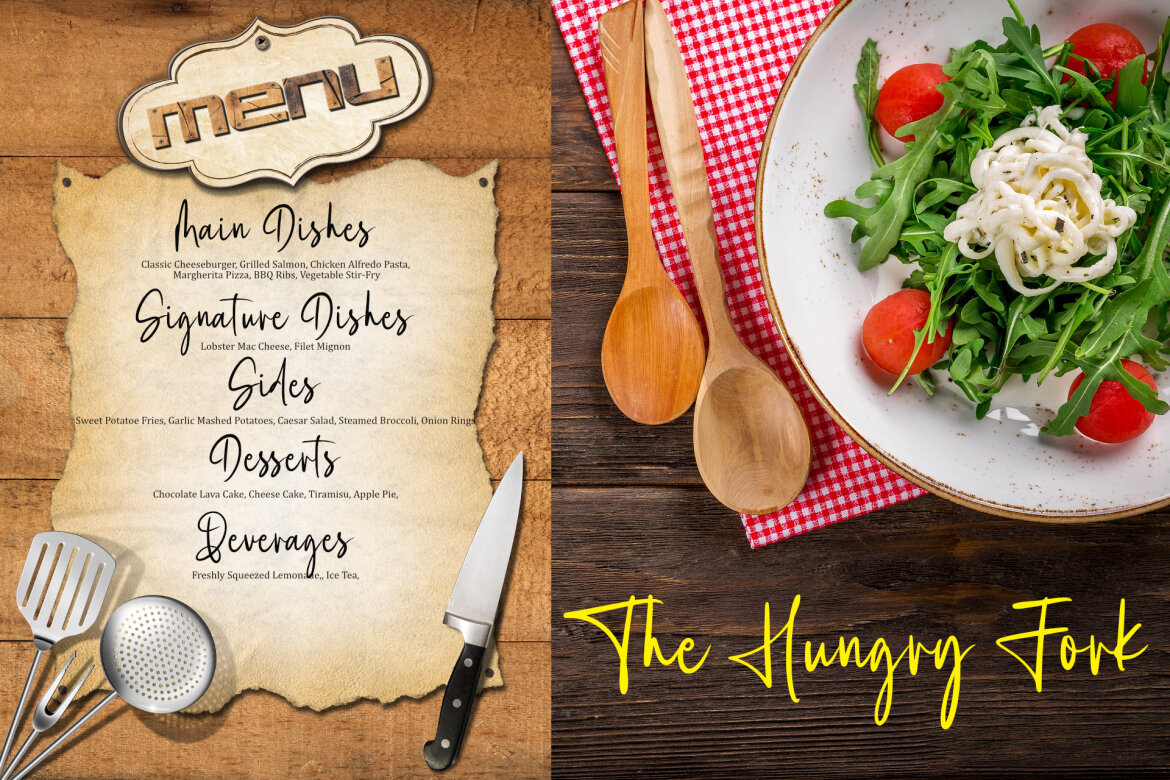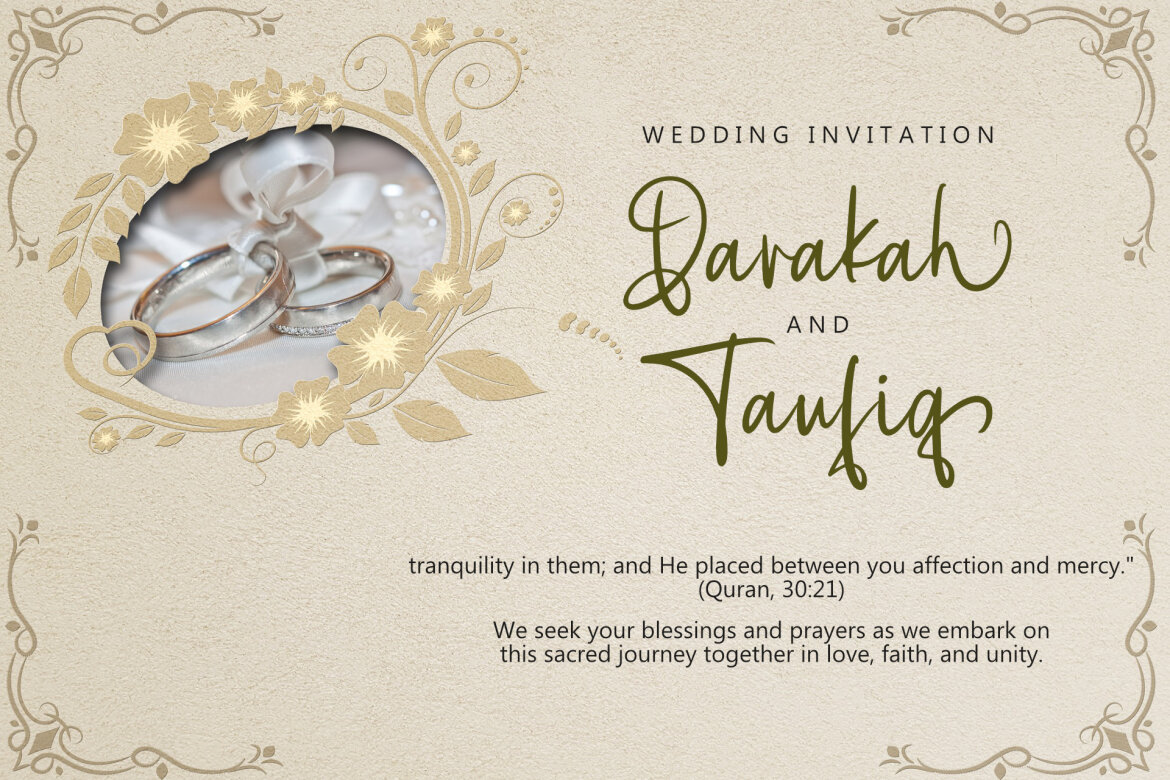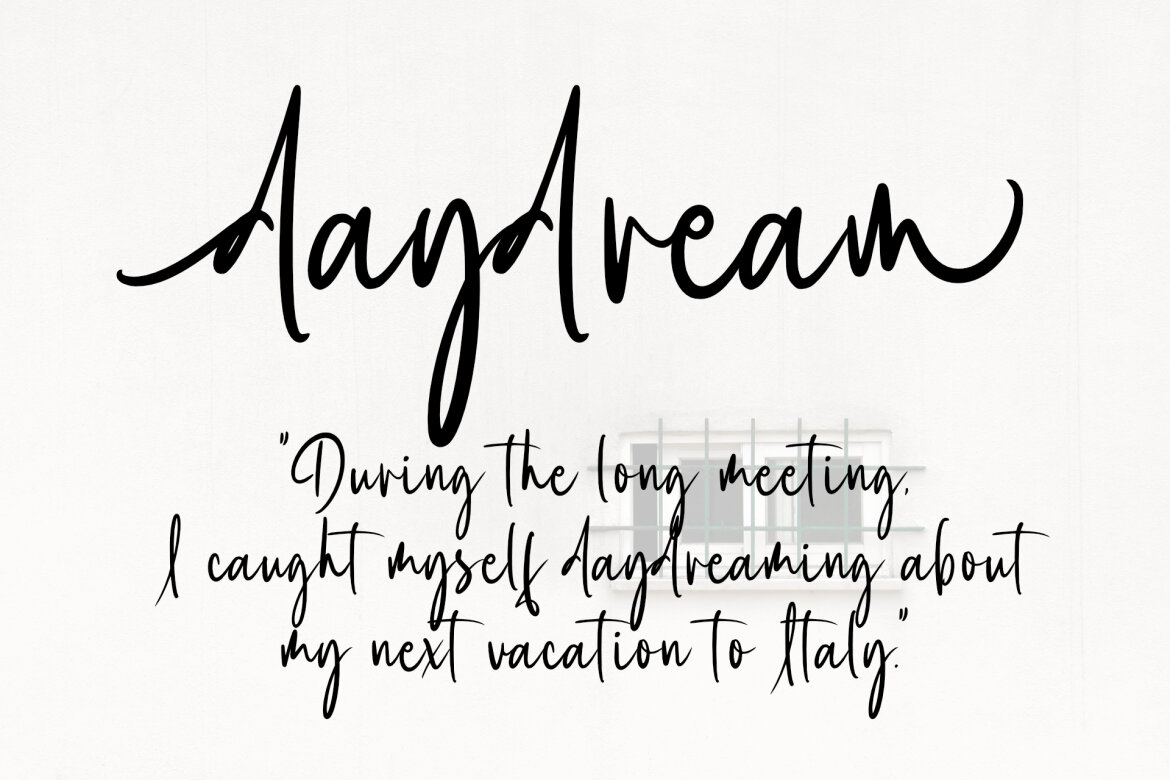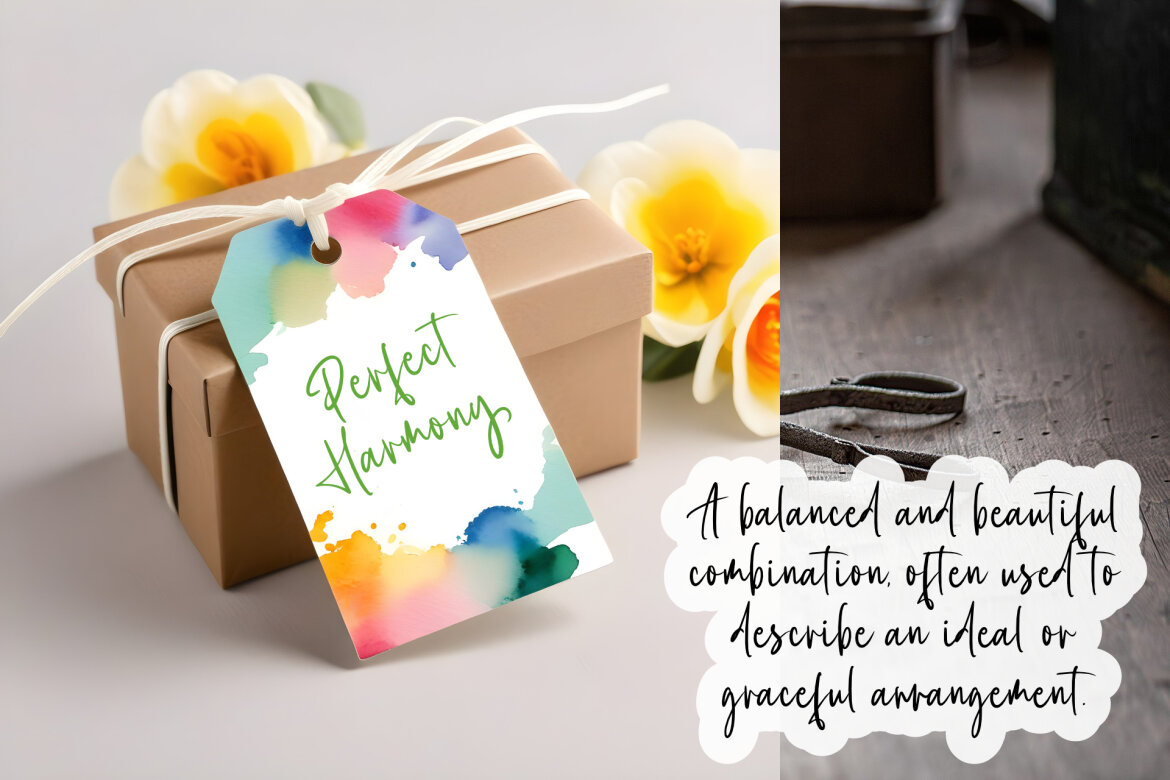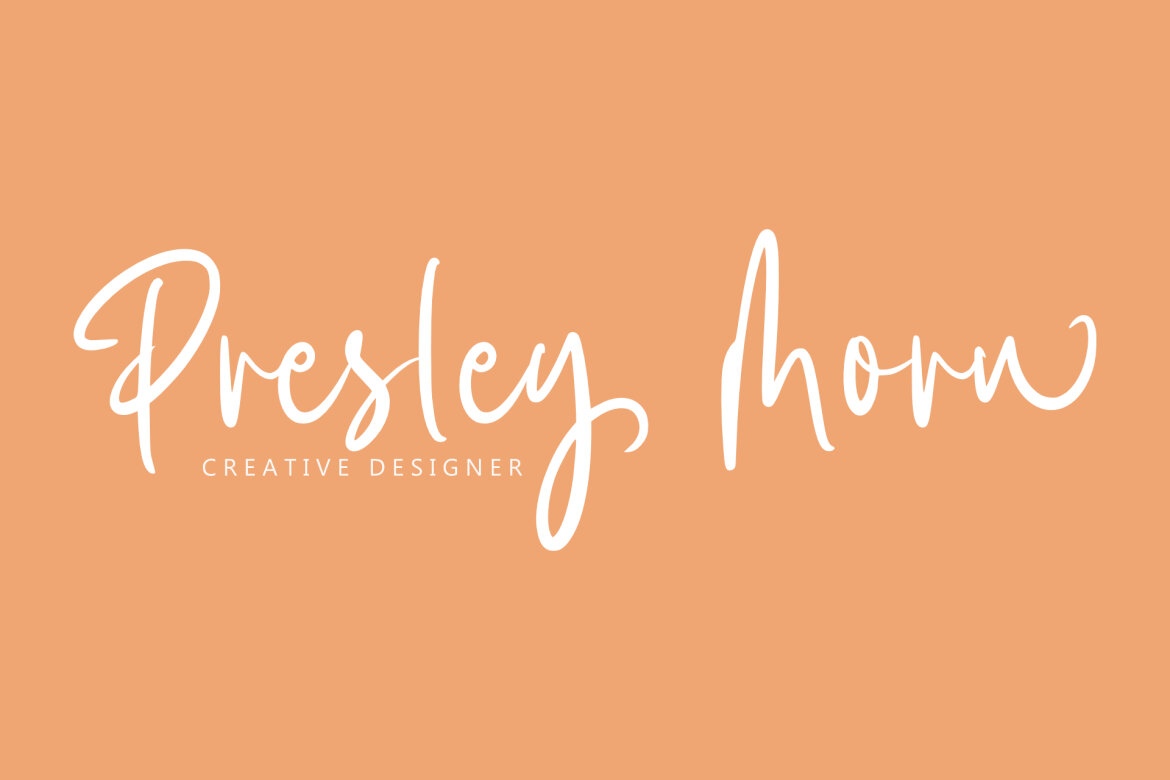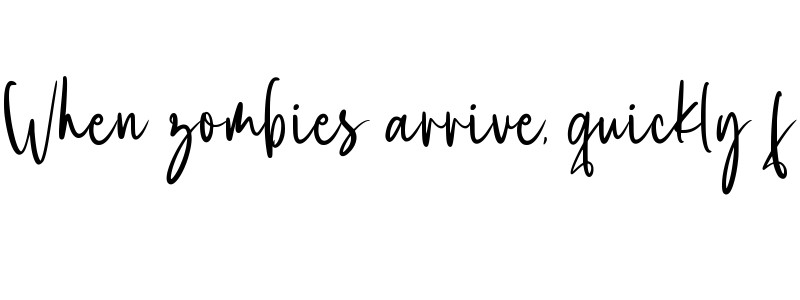
Frosted Beauty FREE Font
Introducing Frosted Beauty, a timeless and elegant handwritten font designed to add a touch of sophistication to any project. With its fluid, graceful strokes and artistic charm, this font captures the essence of classic calligraphy while maintaining a contemporary feel.
• alternate
• ligature